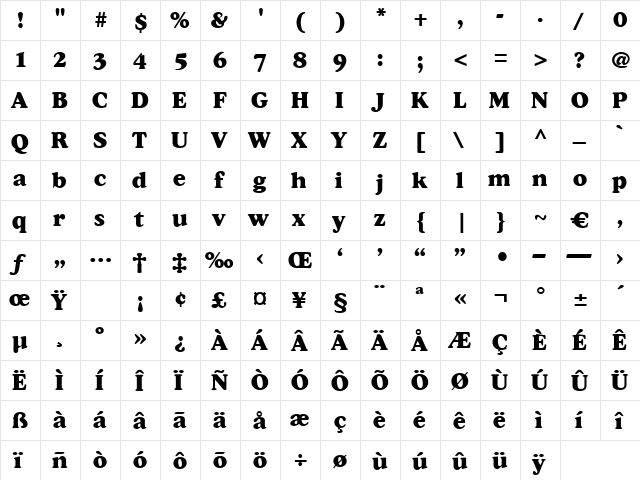
Gerona Regular Font Preview
Gerona Regular
Design Context for Gerona Typeface
Gerona takes a measured approach to typography — its balanced proportions and neutral character make it a reliable workhorse for both digital and print work.